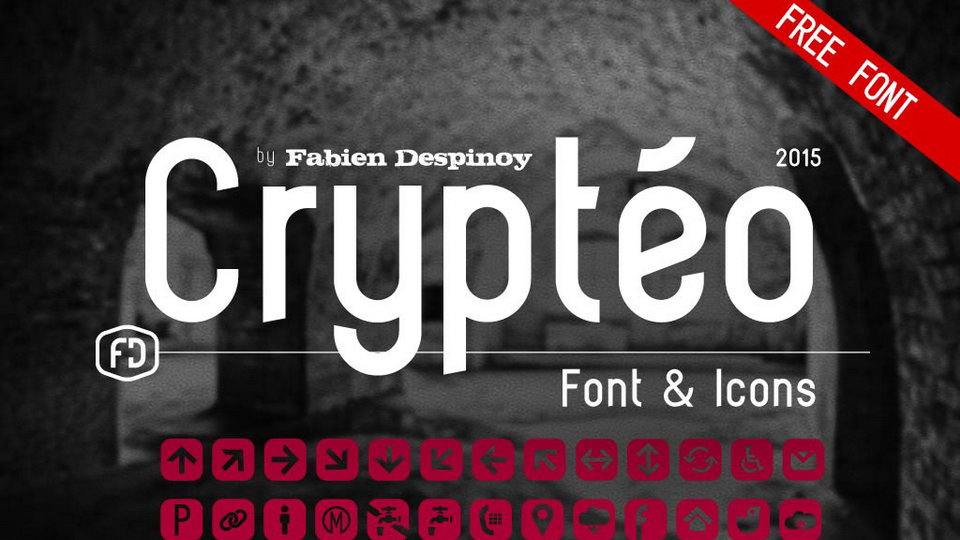
Download Crypteo font, a part of a visual identity of a historical exhibition venue. It had to be both readable enough to serve the curators of the museum and sufficiently strict and elegant to contribute to the theatricality of the place.